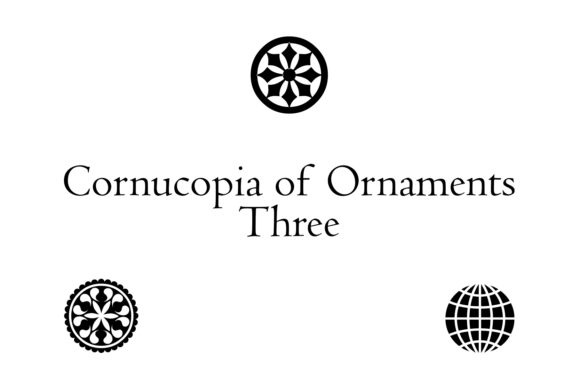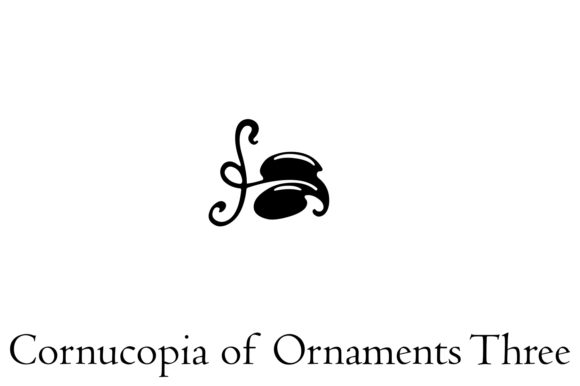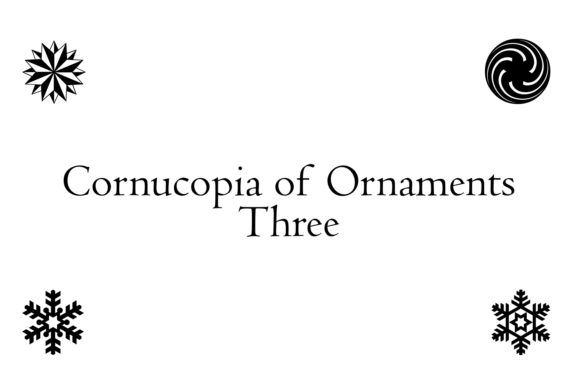
Cornucopia of Ornaments Three Font
About Cornucopia of Ornaments Three Font
The Cornucopia of Ornaments Three is a set of ornaments and dingbats that bring a touch of tradition and elegance to your designs. Whether you’re designing a logo for a luxury brand or simply want to inject some sophistication into your design, these ornaments and dingbats are the perfect choice.
The Cornucopia of Ornaments Three is a great choice for anyone looking to create a design with a touch of tradition or elegance. Whether you’re designing a logo for a fine dining restaurant, a fashion brand, or any other project, these ornaments and dingbats are the perfect way to add a touch of sophistication to your design.
One of the best ways to use the Cornucopia of Ornaments Three is to add a touch of beauty and elegance to your design. Whether you’re creating a logo, a card, or any other visual element, these ornaments and dingbats are sure to catch the eye of your audience and instantly convey a sense of sophistication and tradition.
If you’re looking for a dingbat design that will add a touch of beauty or elegance to your design, The Cornucopia of Ornaments Three is the perfect choice. With its elegant and traditional design, it’s sure to create a striking and memorable look to any project. Whether you’re looking to convey a message of elegance, grace, or simply want to bring a touch of tradition to your design, The Cornucopia of Ornaments Three is an incredible asset to your dingbat library and has the potential to elevate any project with a touch of luxury.